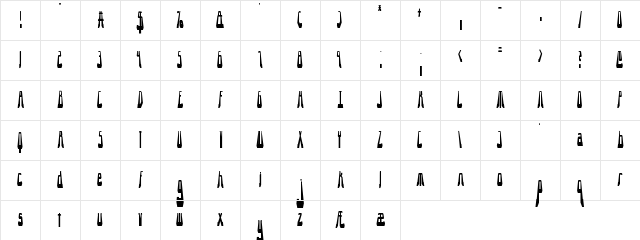
10.15 Saturday Night BRK Regular
Foundry: ￿IGMA FONTS
Designer: ￿IGMA FONTS - Brian Kent
Design Context for 10.15 Saturday Night BRK
10.15 Saturday Night BRK is a composed and adaptable typeface that performs quietly and consistently across a wide range of design contexts.